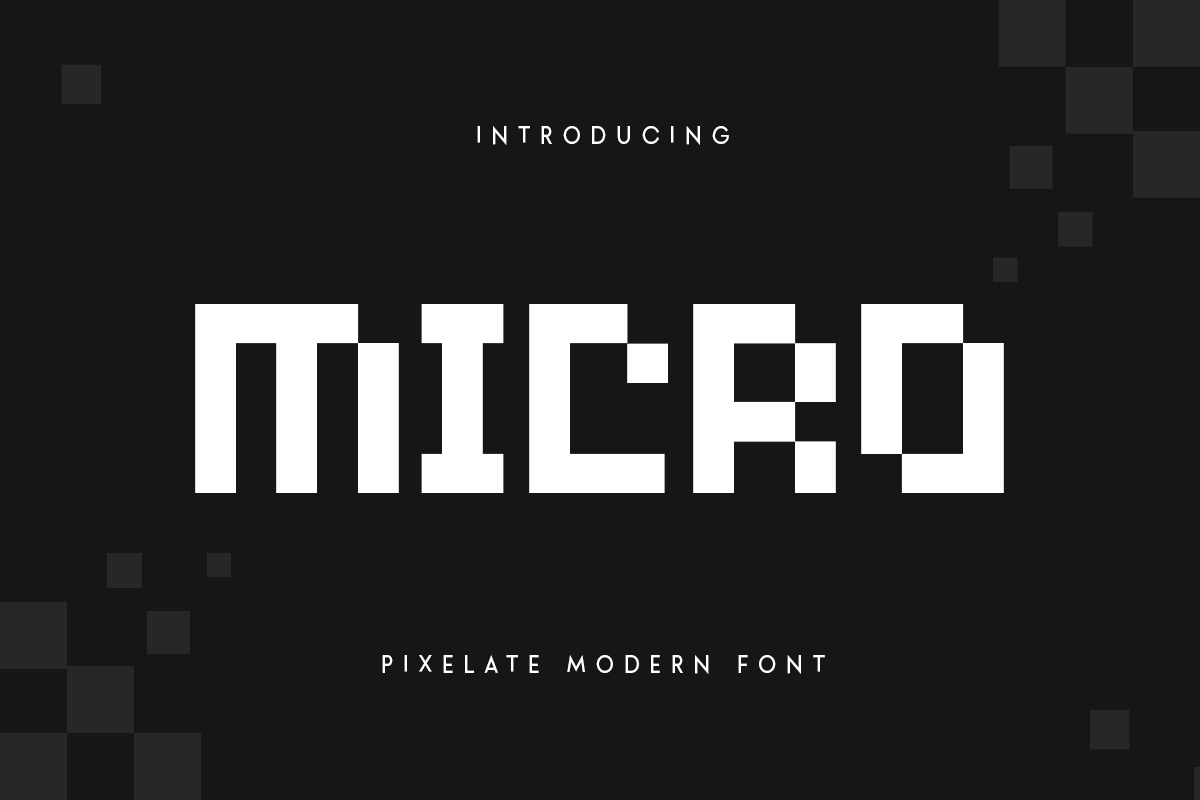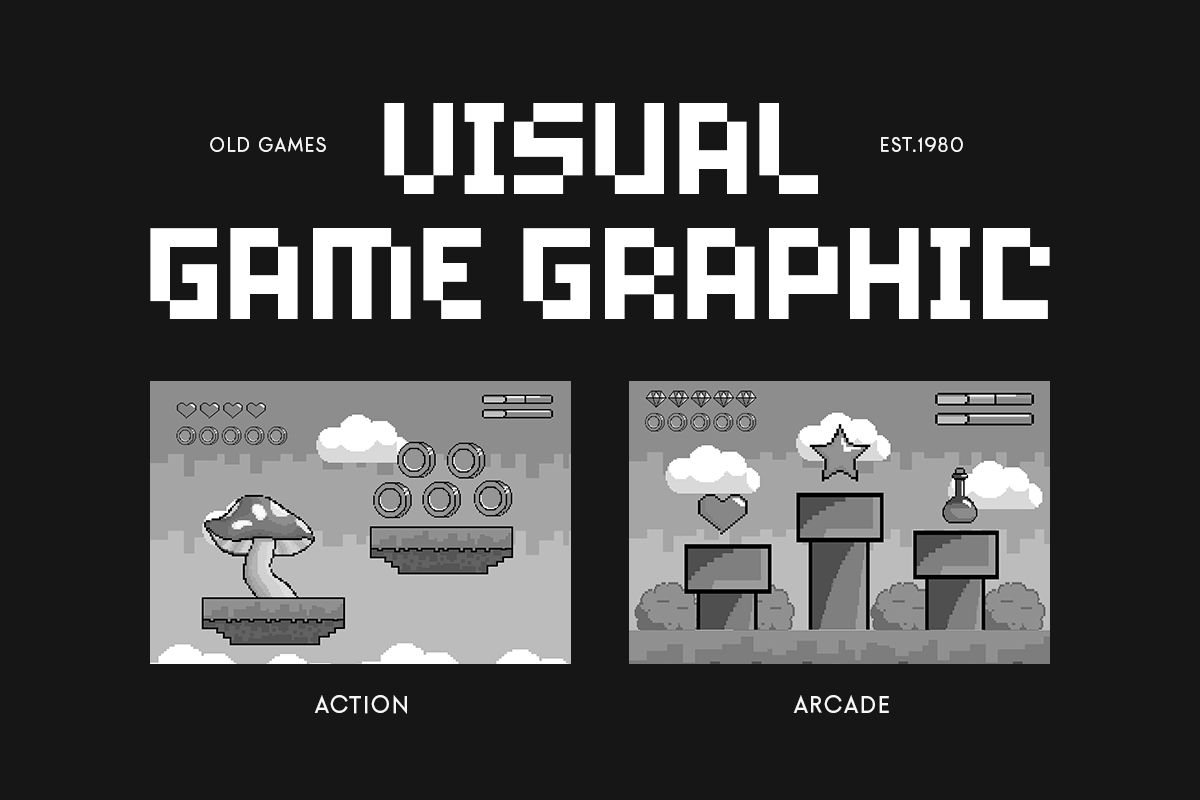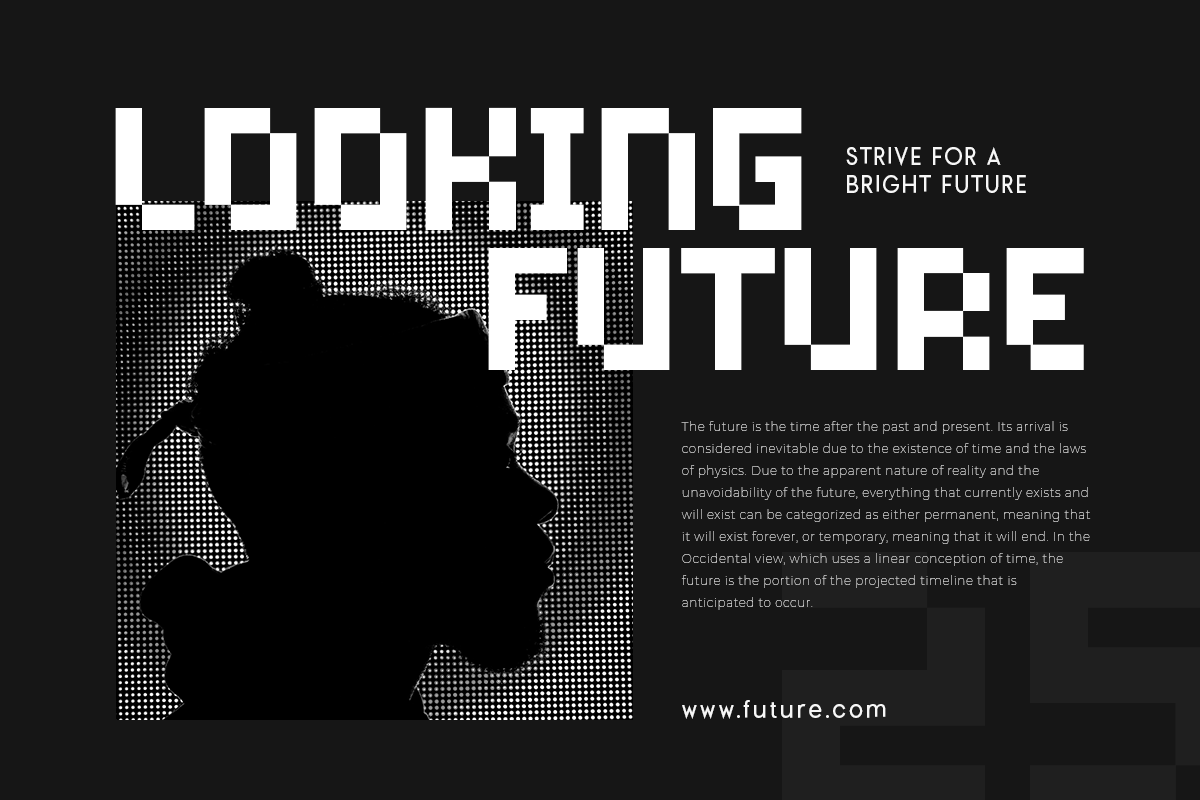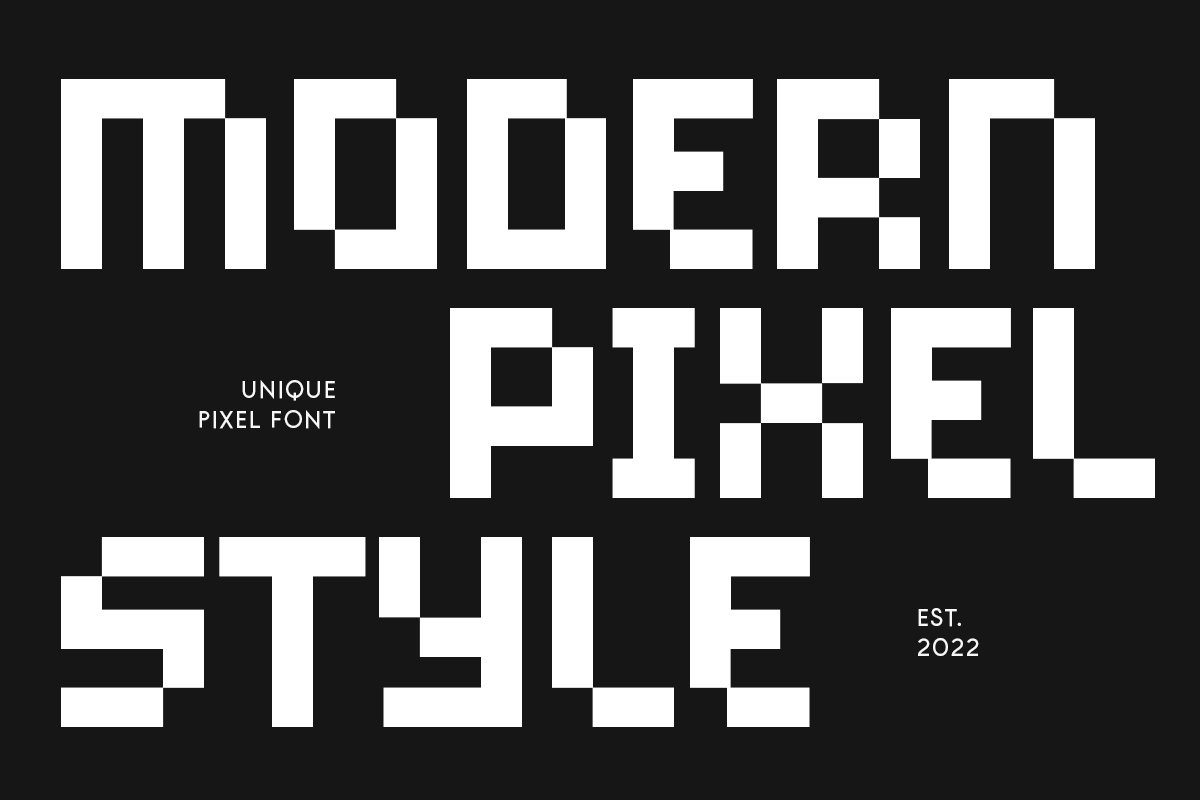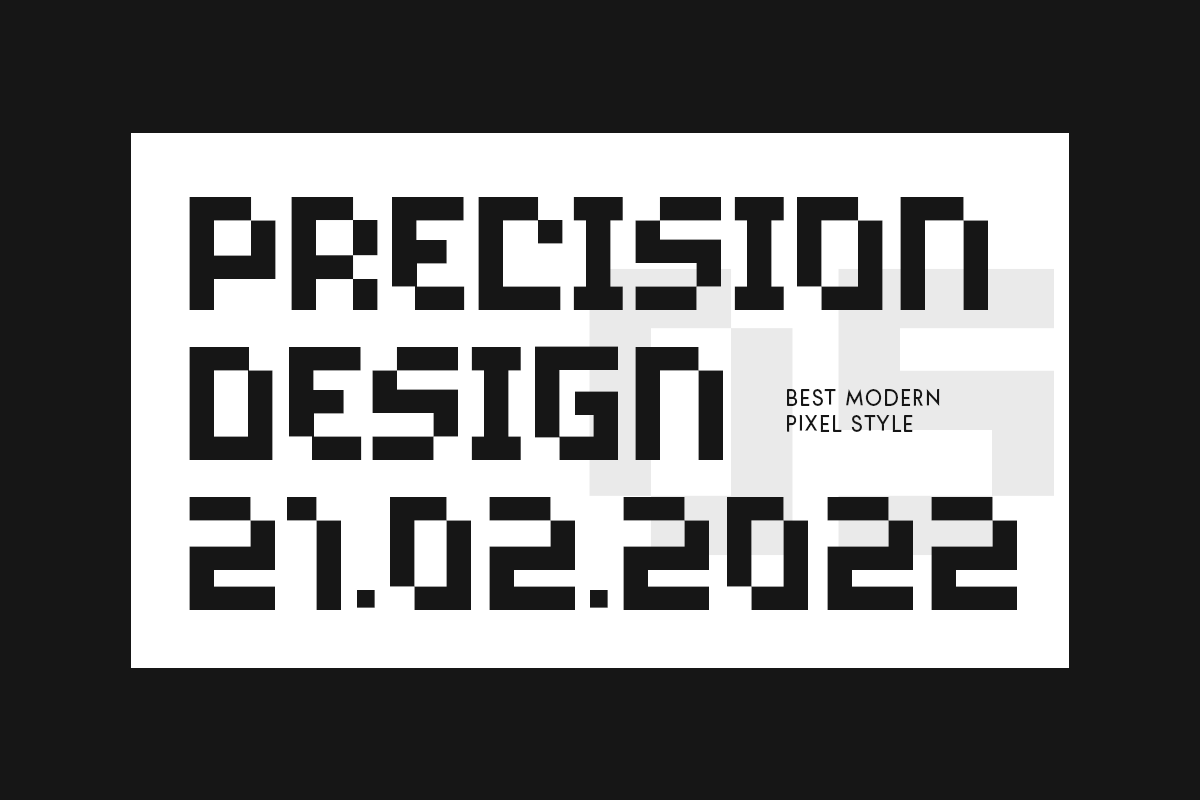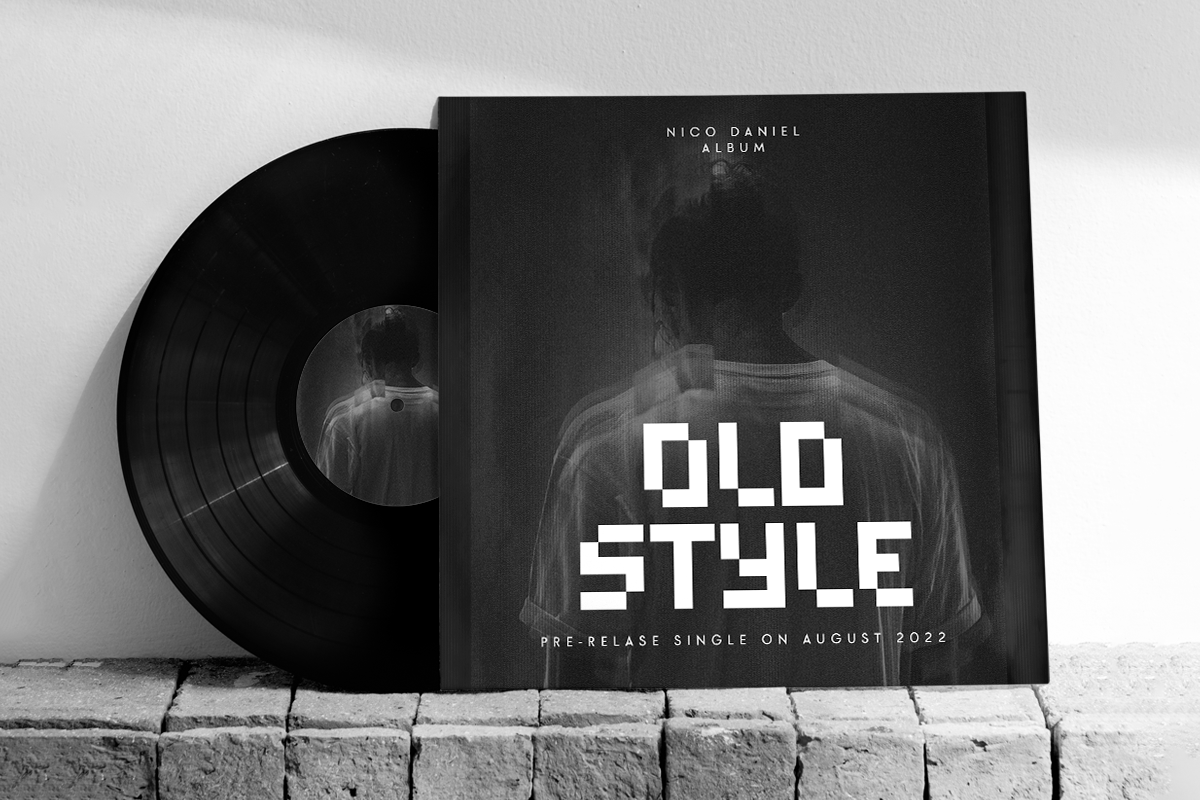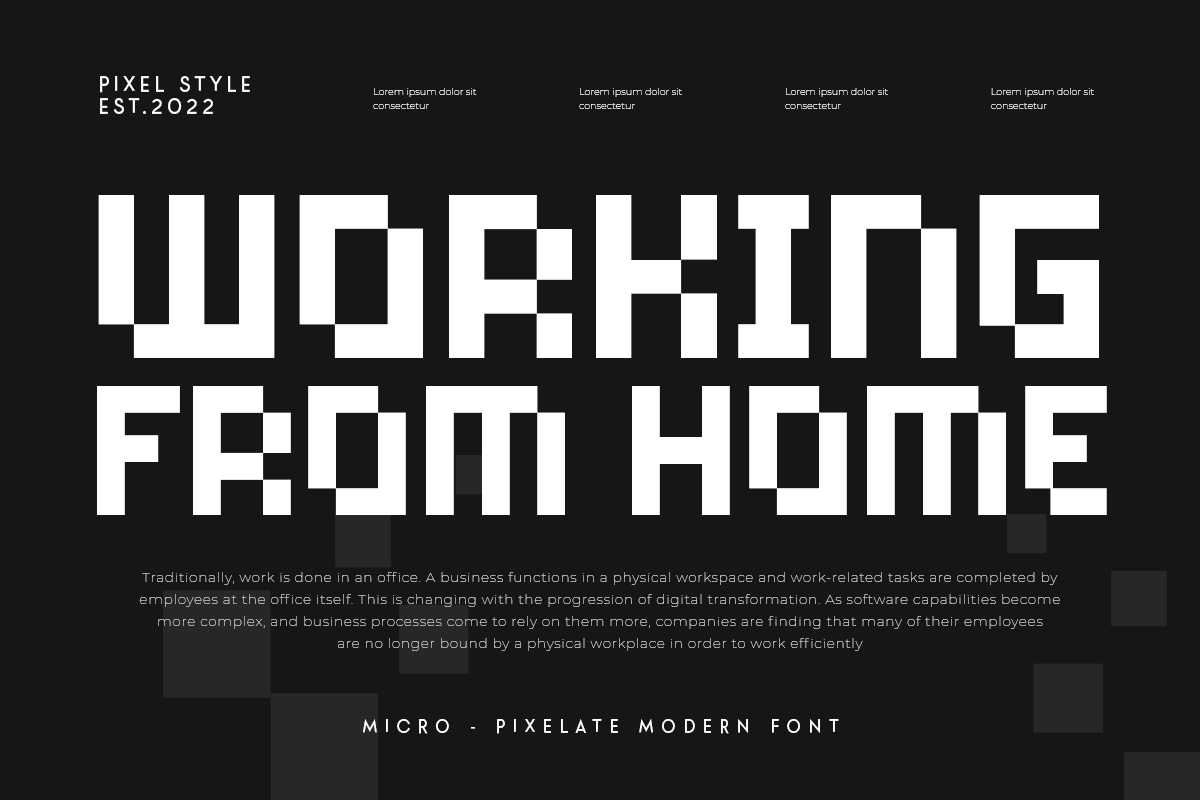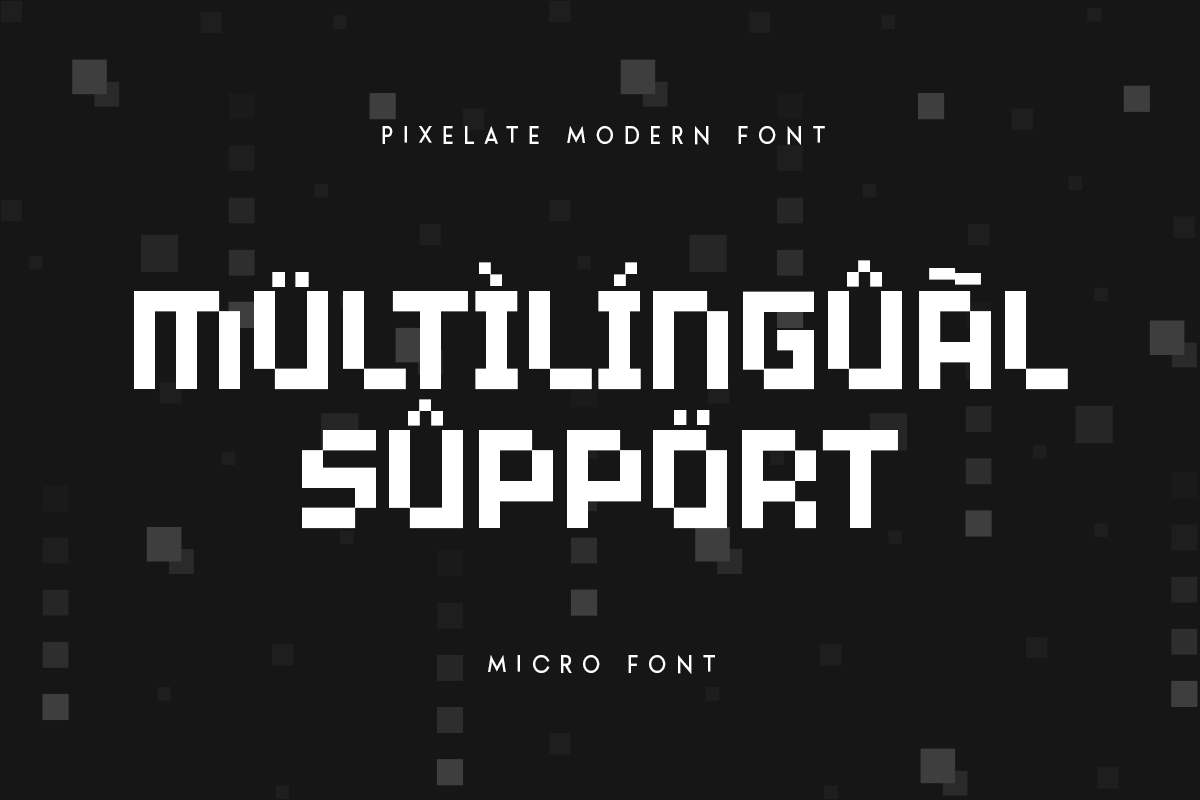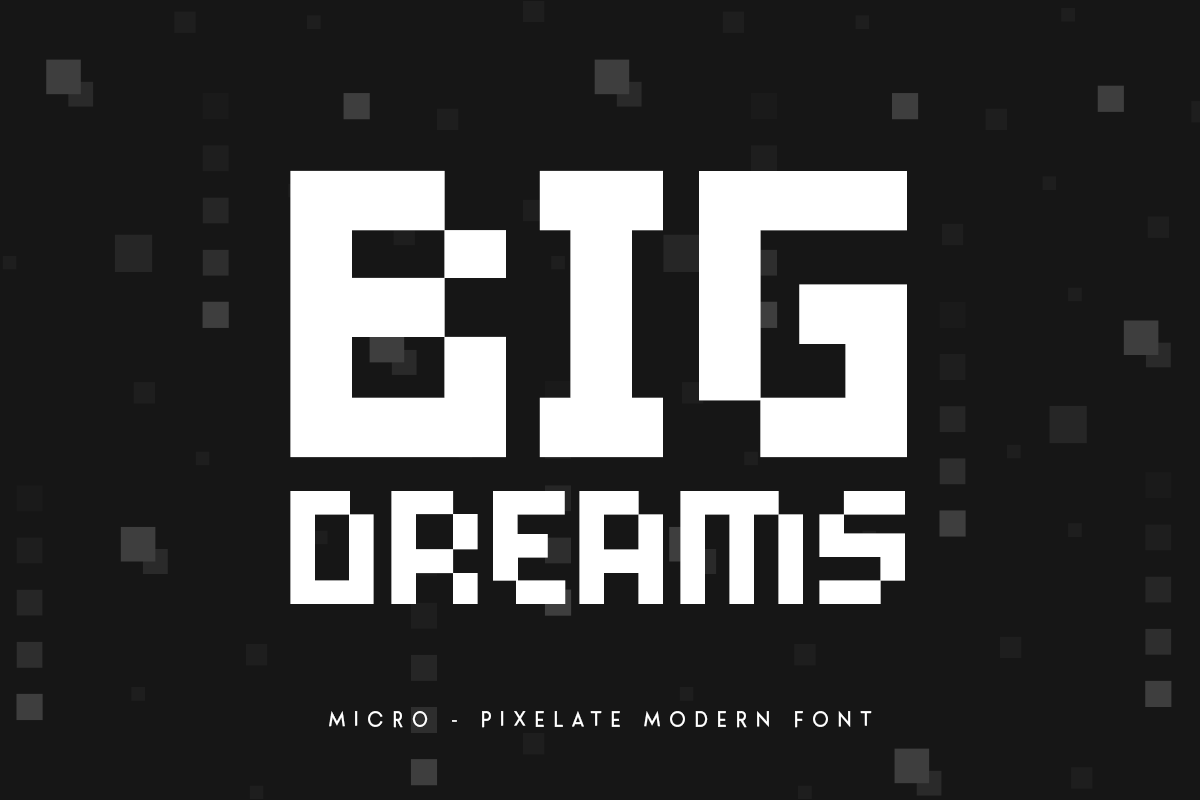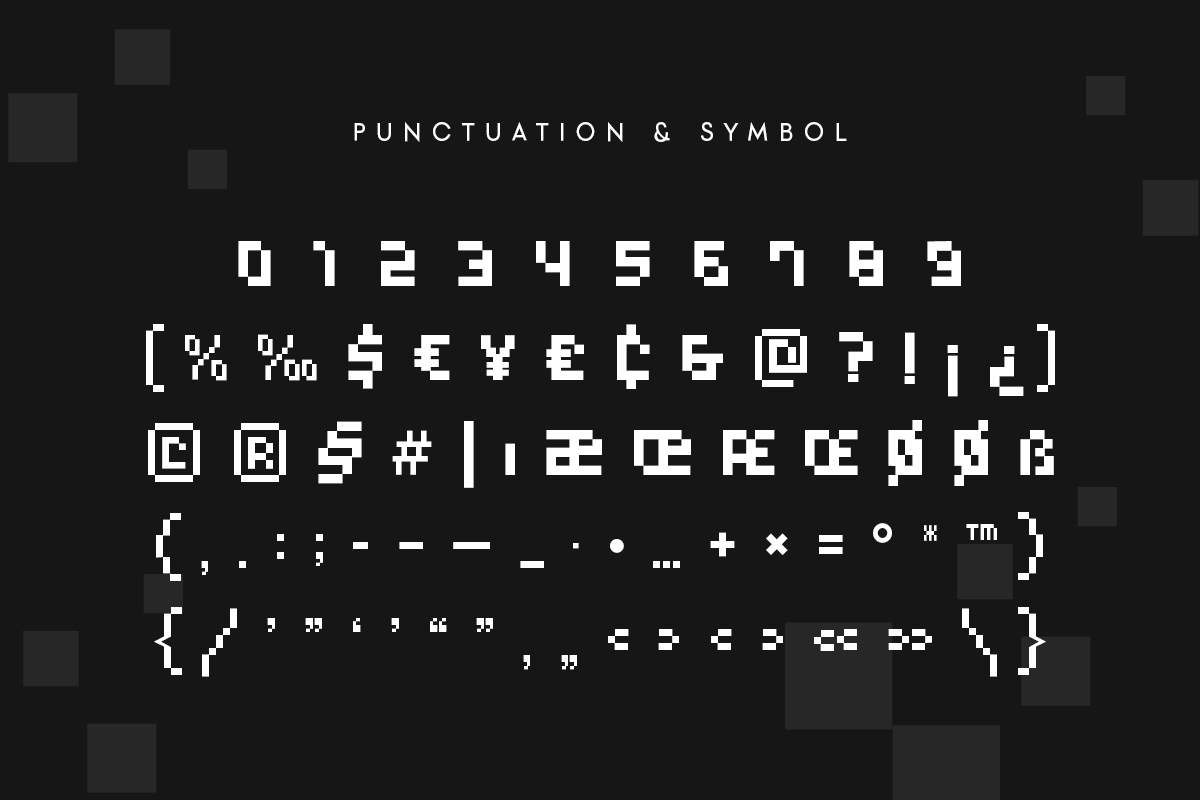
Micro – Pixelate Modern Font
A Modern Pixelate font are prepared special for NFT, pixel style, game, or poster design needs that will add your value. It’s so perfect to add your style and headline overview. And specially for Micro font, we crafted for old style, NFT and unique feels so enjoy to create any project that will show your main idea out.